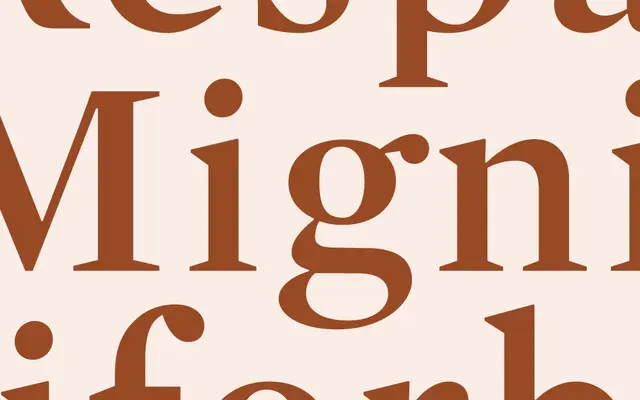
Mercury Display
Hoefler & Co · Jonathan Hoefler, Tobias Frere-Jones, and the H&Co Design Studio · 2008
Mercury Display specimen from Hoefler & Co
The display cut of Mercury, drawn for headlines and editorial titling with finer hairlines and sharper detail than the text family.
A display serif by Jonathan Hoefler, Tobias Frere-Jones and the H&Co studio, drawn as the headline complement to Mercury Text. Sharper serifs, finer hairlines and tighter spacing make it suited to newspaper mastheads, magazine titles and editorial spreads where the text family would feel soft. Four weights with italics keep it usable for full headline hierarchies.
The display cut of the Mercury system, drawn for large sizes with finer hairlines and sharper detail than the text family.